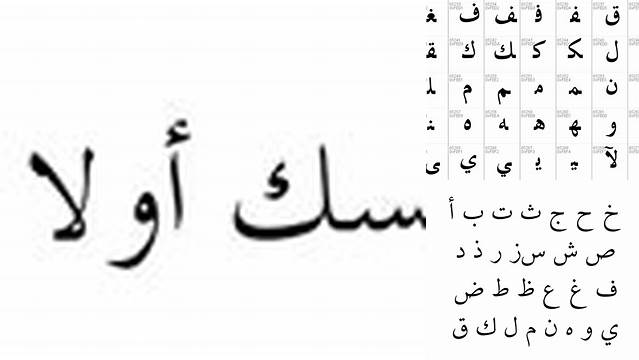
Hey guys! Ever wanted to add a touch of the Middle East's rich culture to your designs? Well, you're in luck! This guide is all about traditional Arabic fonts, and the best part? You can get them for free download! We'll dive deep into the world of these beautiful scripts, covering everything from their historical roots to where you can find the best fonts, and how to use them in your projects. So, buckle up, grab a coffee (or a strong Arabic coffee if you're feeling authentic!), and let's get started on this awesome journey. Whether you're a seasoned designer or just starting out, this guide is designed to help you navigate the fascinating world of Arabic typography. We'll explore the nuances of different font styles, discuss the legal aspects of using free fonts, and even provide some cool design tips to make your work shine. Ready to unlock the beauty of Arabic calligraphy in your digital creations? Let's go!
Unveiling the Beauty: Exploring the World of Traditional Arabic Fonts
Let's be real, guys, traditional Arabic fonts are more than just letters; they're a gateway to a world of art, history, and culture. The flowing curves, elegant serifs, and unique letterforms tell stories that span centuries. The sheer variety is astonishing. From the classic, formal styles used in official documents to the more modern, artistic fonts perfect for branding, the options are endless. When we talk about traditional Arabic fonts, we're not just talking about a single style; we're referring to a diverse family of scripts, each with its own distinct character and history. The Diwani script, for example, known for its ornate and flowing style, was favored by Ottoman sultans. Its elegance is unmatched, making it perfect for formal invitations or creating a sense of luxury. Then, there's the Ruq'ah script, a more casual and handwritten style often used for everyday writing. It's characterized by its simplicity and readability. This script is ideal for a modern feel without sacrificing its Arabic identity. And let's not forget the Naskh script, a clear and easily legible style that’s widely used in the Quran. Its clean lines and simplicity make it a favorite for both print and digital media. Each style has its own nuances, its own story. In addition to these are the Kufic scripts, dating back to the early Islamic era, which are known for their geometric and angular forms. They give a sense of strength and history. They’re often used in architectural design and artistic compositions. There are also modern Arabic fonts that are inspired by both traditional and Western typography. The blending of these styles allows you to create a unique visual identity. Learning about these different styles is the first step in appreciating the beauty of Arabic calligraphy. It allows you to choose the perfect font for your specific project and appreciate the rich history behind each style. Trust me, it's like opening a treasure chest of cultural richness!
Choosing the right font can be the difference between a good design and a great one. So, taking the time to understand the options is a must for any aspiring designer.
Font Anatomy 101: Exploring the Key Features of Arabic Typography
Alright, time to dive into the details, guys. Understanding the anatomy of traditional Arabic fonts helps you appreciate their beauty and use them effectively. Just like English letters, Arabic letters have their own unique characteristics. First, let’s talk about the direction. Arabic is written from right to left, so the flow of the text is the opposite of what we're used to. This is important when designing layouts. You also need to consider the baseline, which is the imaginary line that the letters sit on. In Arabic fonts, the baseline is a crucial element. It provides a foundation for the letters to appear. The ascenders are the parts of the letters that extend above the baseline (like the tops of the letters "alif" or "lam"). Descenders are the parts that dip below the baseline (like the tail of "noon"). Different fonts use ascenders and descenders. This is to provide different character and visual rhythms. Another important thing is the letterforms. Arabic letters have various forms depending on their position in a word, whether they're isolated, initial, medial, or final. This is a core difference between the Arabic and Latin alphabet. Ligatures are super important. They are the combinations of two or more letters. They are common in Arabic to enhance readability and aesthetic appeal. Spacing and kerning are also key. Spacing refers to the amount of space between words and sentences. Kerning refers to the spacing between individual letters. Good spacing can make a big difference in readability. You can create a visually balanced and appealing design. Understanding these elements will give you the tools to use Arabic fonts effectively and make your designs stand out. So, go ahead, get familiar with the terms and get ready to make some beautiful designs.
Choosing the Right Style: Different Types of Arabic Fonts and Their Uses
Now, let’s explore different styles of traditional Arabic fonts. Choosing the right style is a vital part of designing a project. Each font style brings a unique character and feel. The Naskh style is widely used for its clarity and legibility. It's perfect for body text, books, and websites. It's often considered the standard in many Arabic-speaking countries. Then, there's the Ruq'ah style, which is a more informal, handwritten style. It is a great choice for headings, social media posts, or anything that needs a modern touch. Diwani is a more ornate and elegant font. It is perfect for official documents, invitations, and anything that needs a touch of luxury and sophistication. Kufic fonts are older, geometric styles. They work well for headings, logos, and artistic designs. There are many modern Arabic fonts that combine traditional and Western styles. These are awesome if you’re looking for a unique and contemporary look. When selecting a font, think about the context of your project. Is it formal or informal? Is it aimed at a specific audience? What is the message you want to convey? The font should reflect the tone of your project. Readability is important. Make sure the font you choose is easy to read, especially in body text. Look at the font's character set. Does it have all the characters and ligatures you need? Some fonts might not have all the diacritics or special characters needed for your project. Experimenting with different fonts is a great way to find the perfect match. So, try out different styles, see how they look, and make sure you choose one that enhances your design.
The Art of Pairing: Combining Arabic and Latin Fonts for Stunning Designs
Hey, let's be real, often, projects need more than just Arabic fonts. This is where pairing Arabic and Latin fonts comes in. When pairing, think about the personality of the fonts. Do they complement each other? You want them to be harmonious. Start by considering the contrast in styles. A good contrast can make a design visually interesting. For example, you could pair a clean, modern Latin font with a more ornate Arabic font. This combination is perfect for creating a balance between tradition and modernity. Another tip is to look at the weights of the fonts. Matching the weight of the Arabic and Latin fonts can create a visually pleasing effect. If you have a bold Arabic font, then match it with a bold Latin font. Avoid combining fonts that are too similar in style. This can make your design feel messy and confusing. Stick with contrasting fonts. Consider using a serif font for the main text and a sans-serif font for headings, or vice versa. The contrast can highlight the design hierarchy. It's also worth considering the x-height of the fonts. The x-height is the height of the lowercase letters. Make sure the x-heights of your fonts are relatively similar. It helps create a more consistent look. Spacing is super important. Use appropriate spacing between words and lines. This makes your design easier to read. Experiment and try different combinations. There are tons of font pairing tools online that can give you some great ideas. So, play around, have fun, and don't be afraid to try new things!
Making it Work: Tips for Using Traditional Arabic Fonts in Your Projects
So, you've got your traditional Arabic fonts and you’re ready to use them. Now, here are some tips to make your designs pop. First, make sure your software supports Arabic fonts. This is a basic, but important step! Not all design software supports Arabic script. Adobe products like Photoshop and Illustrator are usually your best bet. If you're using web design tools, make sure that your chosen font is web-safe or that you have a way to embed it. Always prioritize readability. Choose fonts that are clear and easy to read, especially for body text. Avoid overly ornate fonts for large amounts of text. Play with the font size and spacing. Experiment with different sizes and spacing to make your text visually appealing. Adjust the kerning and tracking to fine-tune the spacing between letters and words. Consider the context of your project. Is it formal or informal? The font you choose should reflect the project's tone. If you are designing for a website, make sure your font is optimized for online display. You can use web-safe fonts or optimize your custom fonts for web use. Don't be afraid to try different combinations. Experiment with different fonts, sizes, and styles. You might find some unexpected combinations that really work well. Use Arabic fonts strategically. They can add a unique cultural element to your designs, but use them in moderation. A design with too many Arabic fonts might be overwhelming. Be consistent. Use the same font styles and sizes throughout your project for a professional look. Remember to always respect the cultural context. Make sure your font choices are appropriate for your target audience. By following these tips, you can create beautiful designs that showcase the beauty of traditional Arabic fonts.
Software Solutions: Design Programs That Support Arabic Fonts
Alright, let’s chat about the tools of the trade. Choosing the right software is crucial for working with traditional Arabic fonts. Adobe Photoshop and Illustrator are industry standards for a reason. They offer robust support for Arabic scripts and advanced typographic features. These applications give you full control over your fonts. Adobe InDesign is designed for layout and publishing. It's a great choice if you're creating documents, magazines, or books with Arabic text. Then, there's Affinity Designer and Affinity Publisher. These are affordable alternatives to Adobe products. They offer excellent Arabic font support and are perfect for both beginner and professional designers. If you're focusing on web design, programs like Adobe Dreamweaver and Sublime Text are your go-to solutions. These tools allow you to code your websites, while making sure your Arabic fonts are displayed properly. Canva is a user-friendly option for beginners. It offers a good selection of Arabic fonts and a simple interface. But, it can be a bit limited. Make sure that the software you choose supports Arabic script. Also, check for features like right-to-left text alignment, ligature support, and diacritic options. These features are essential for creating accurate and beautiful Arabic typography. Get familiar with the software's text tools, including spacing, kerning, and tracking. This will give you full control over your designs. Experiment with different software to find the tools that best suit your workflow and needs. By choosing the right software, you can unlock the full potential of your traditional Arabic fonts.
Arabic Calligraphy in the Digital Age: Merging Traditional and Modern Approaches
Let's talk about how Arabic calligraphy and digital design are blending. It's amazing! One approach is to use digital tools to create calligraphic designs. Designers can use design software to create calligraphic fonts. Another approach is combining traditional calligraphic techniques with digital methods. For example, calligraphers can create artwork using pens and ink, then digitize the artwork. Designers can also create interactive calligraphy pieces. For example, a website or app can feature calligraphy. It has to change depending on user interaction. Collaboration is key. Combining traditional techniques with modern technology. In these collaborative projects, each artist brings unique skills to the table. By combining traditional techniques and modern approaches, you can create unique designs. This fusion showcases the beauty of Arabic calligraphy in the digital age. It will make it even more popular! So go ahead and let the digital age meet calligraphy!